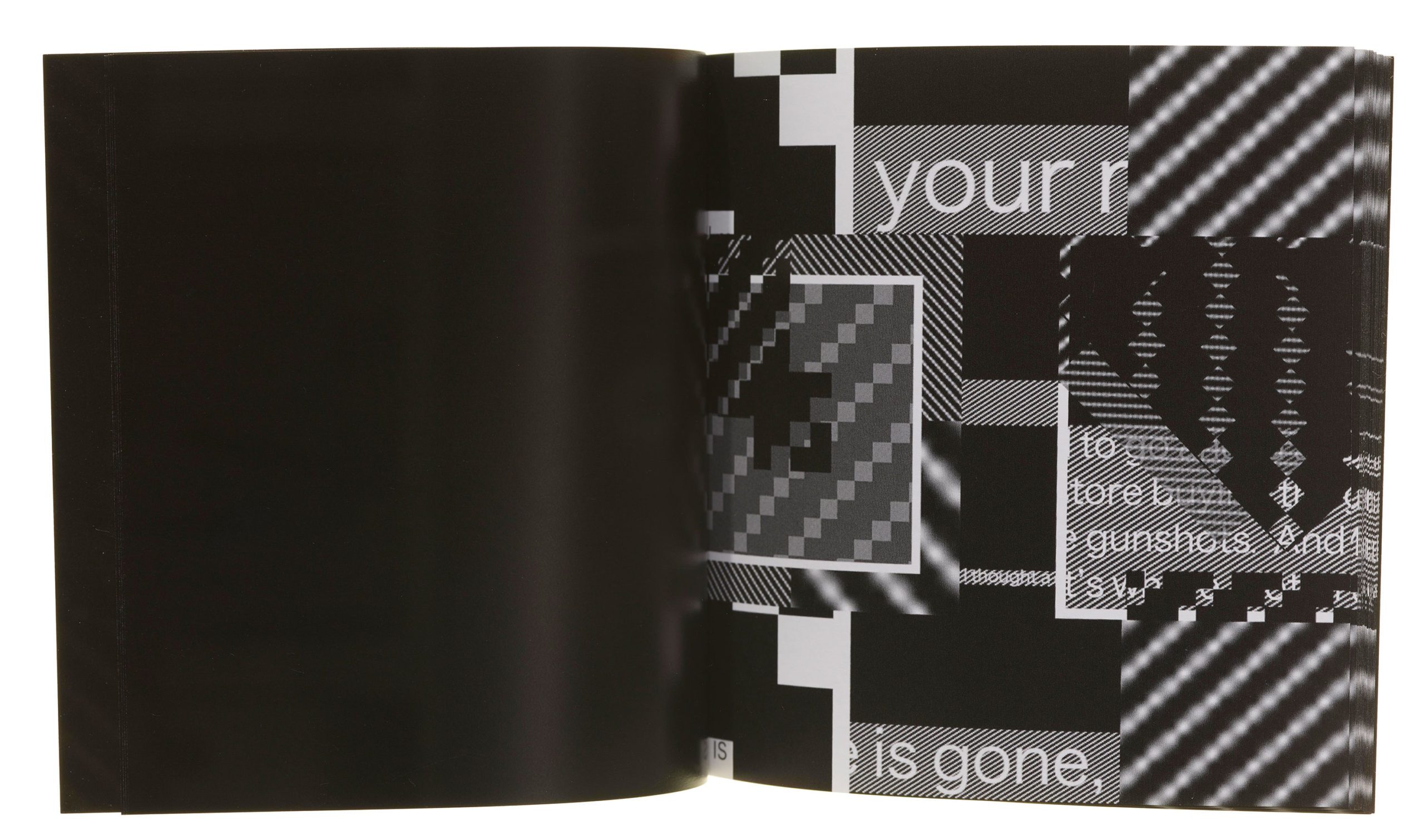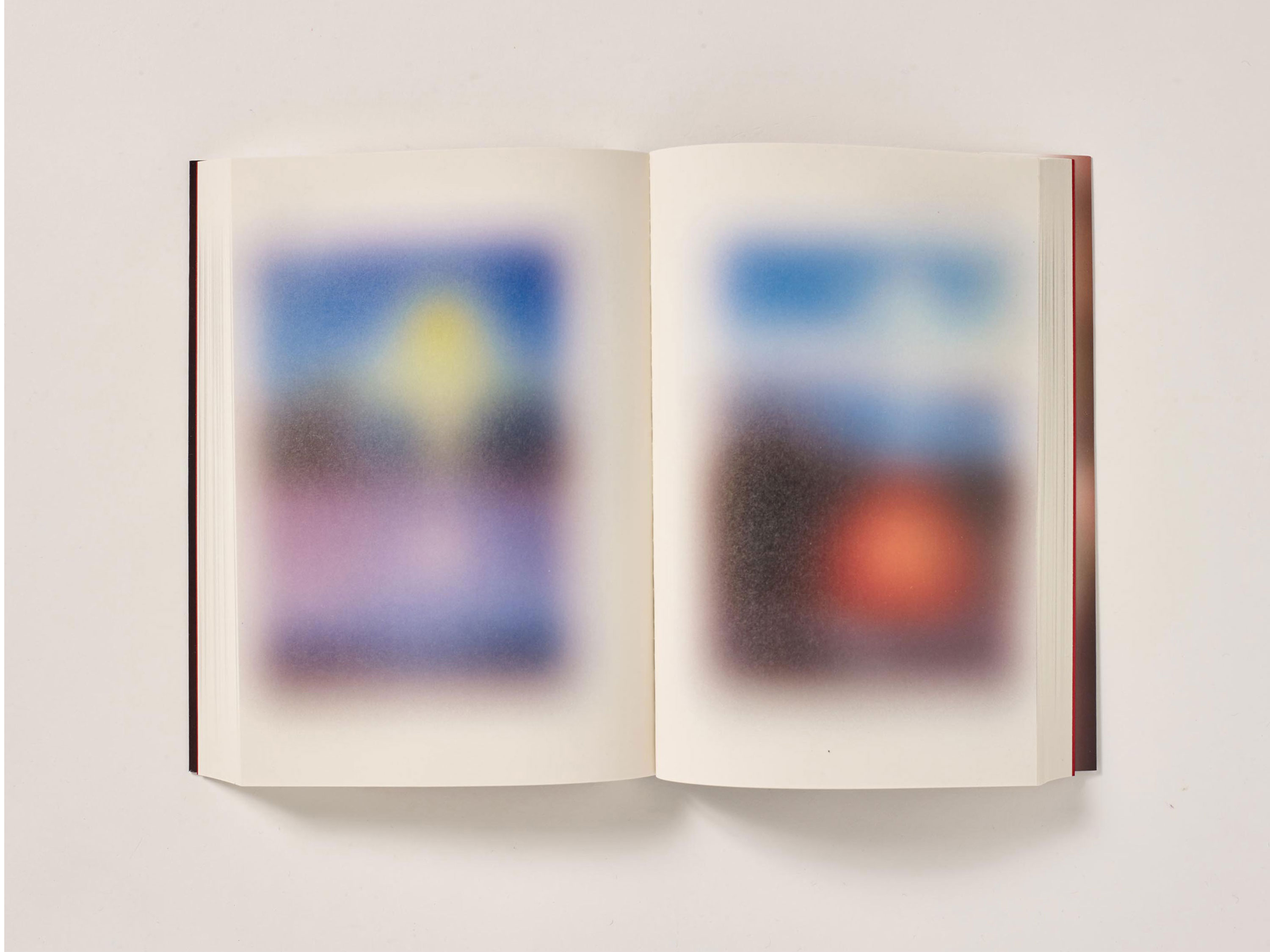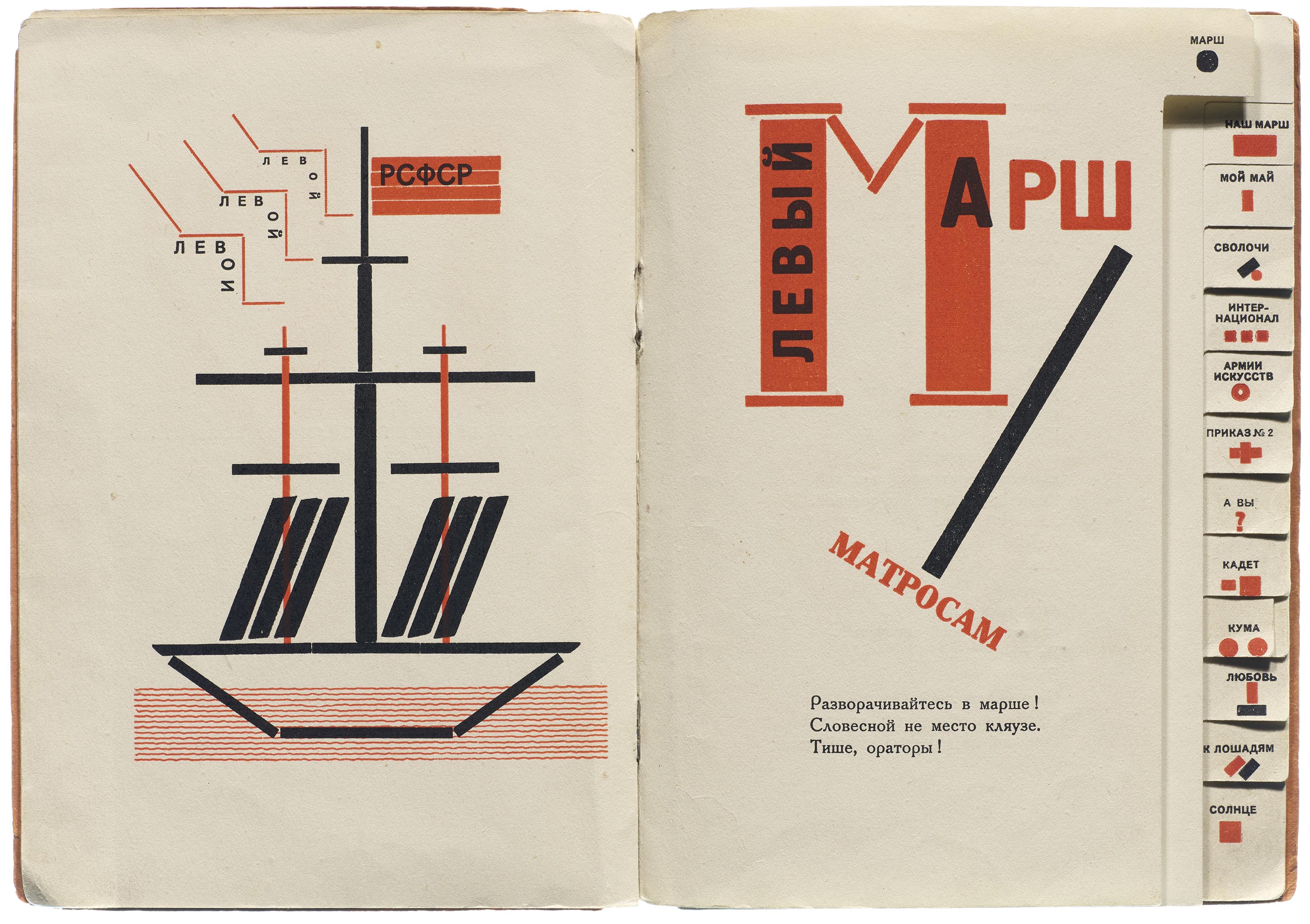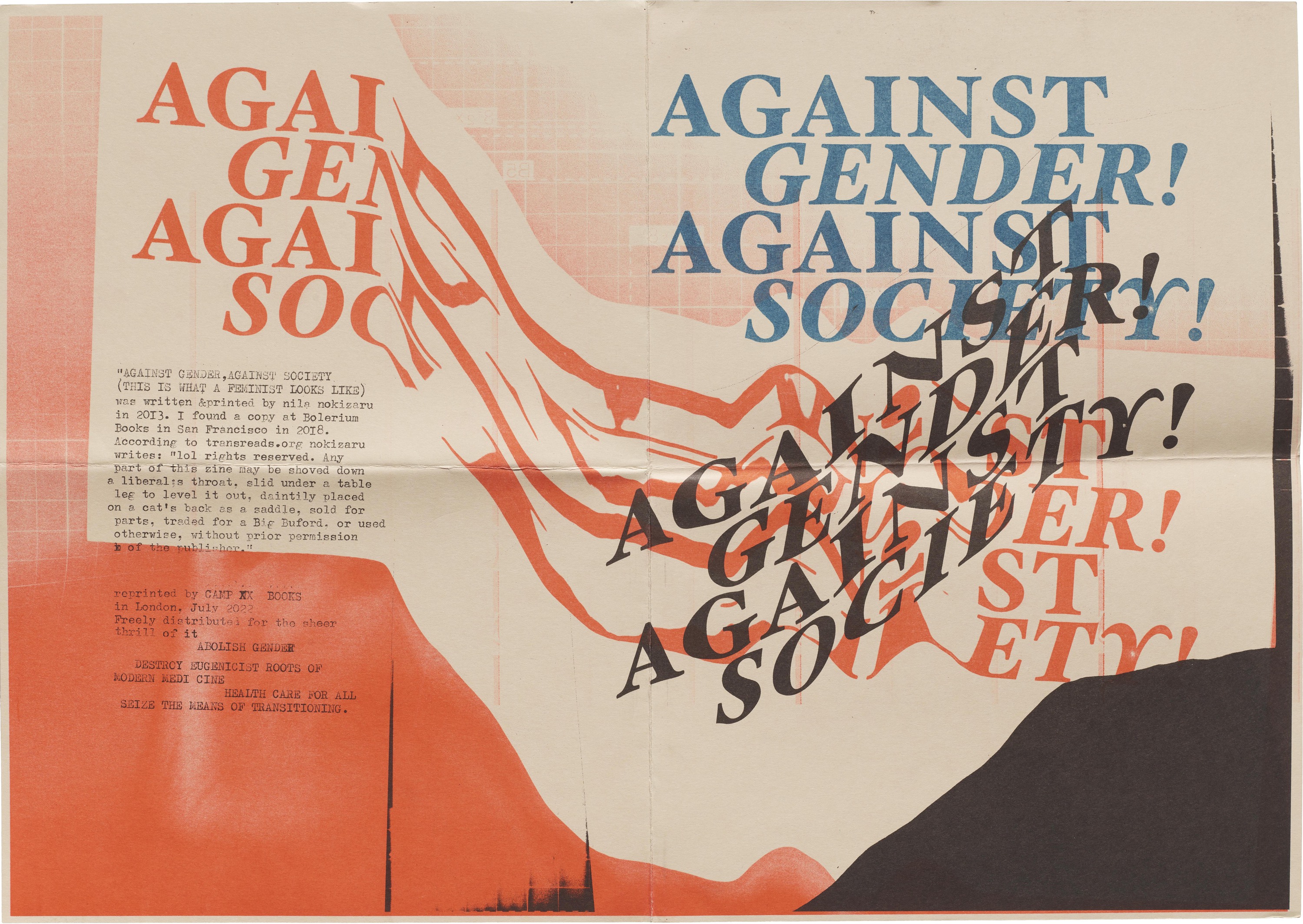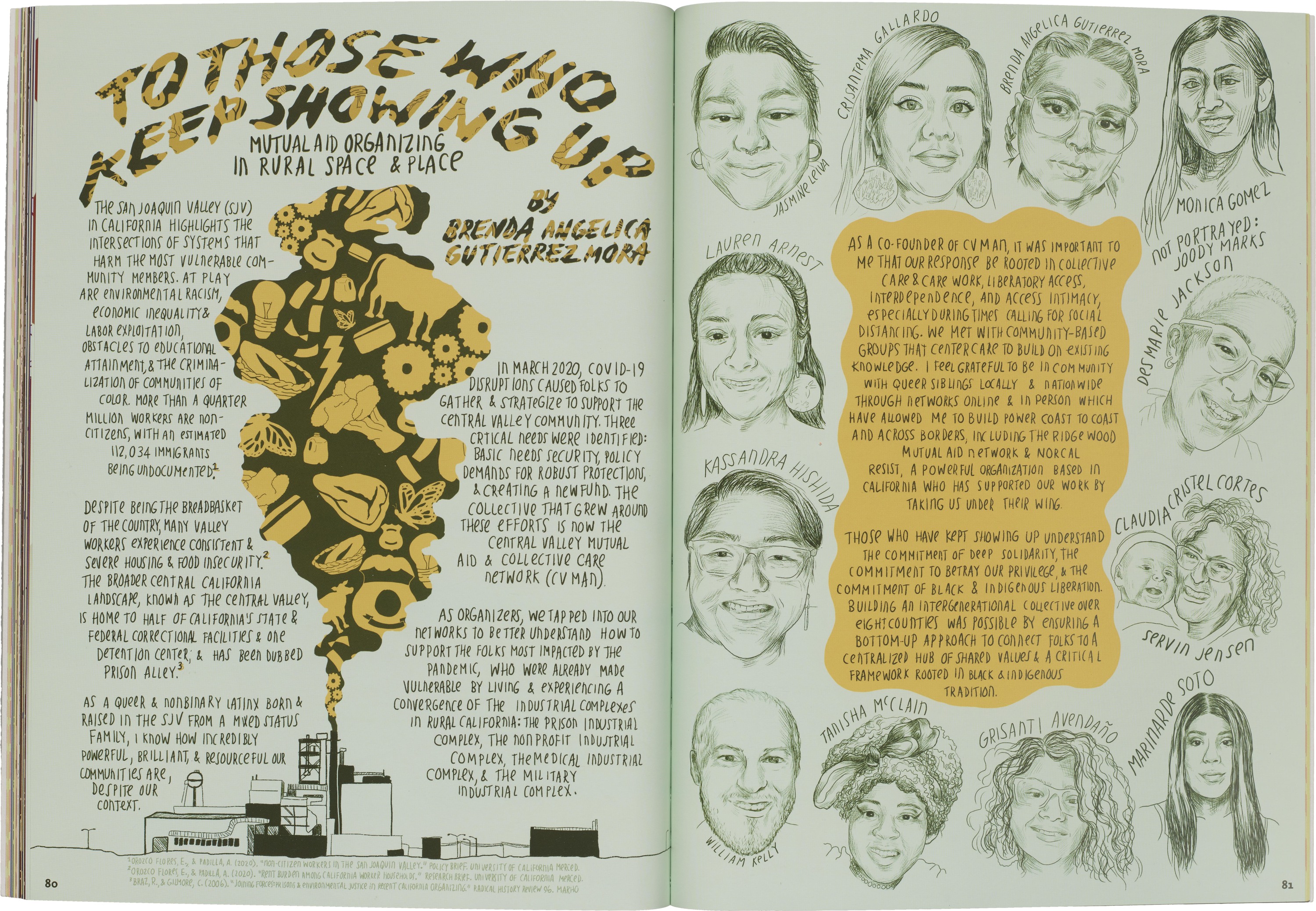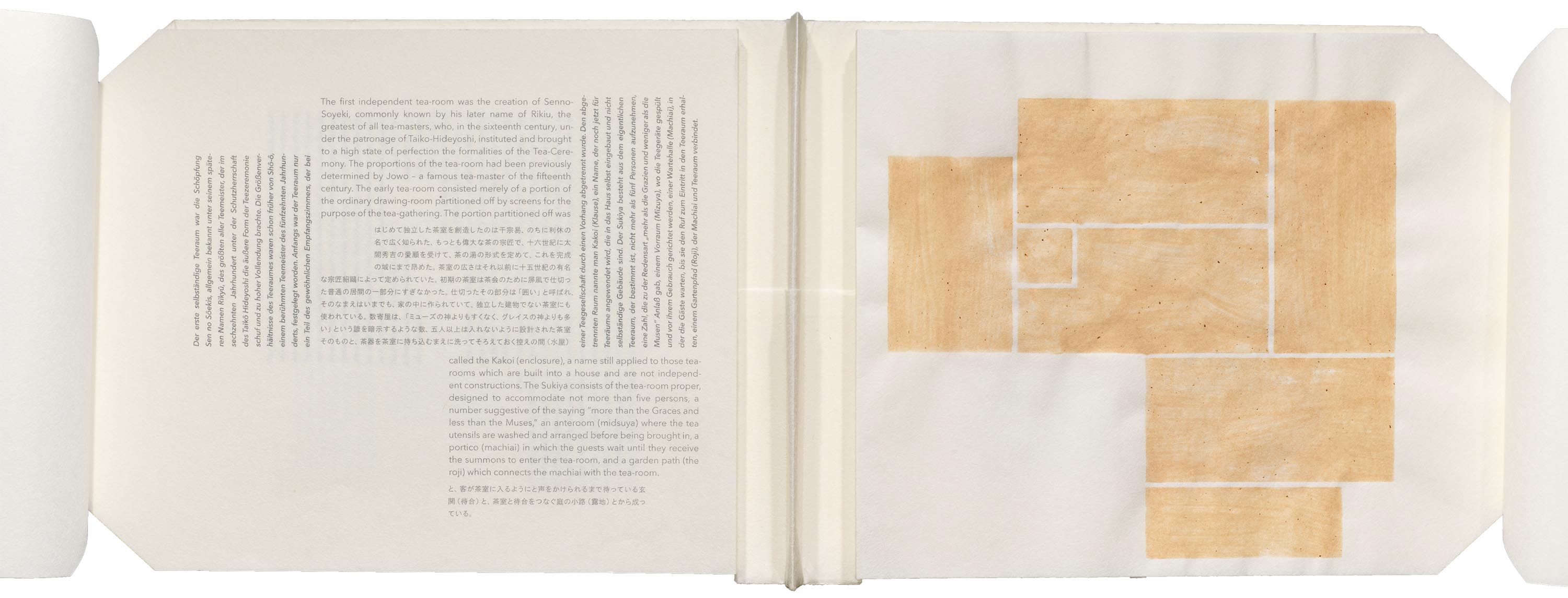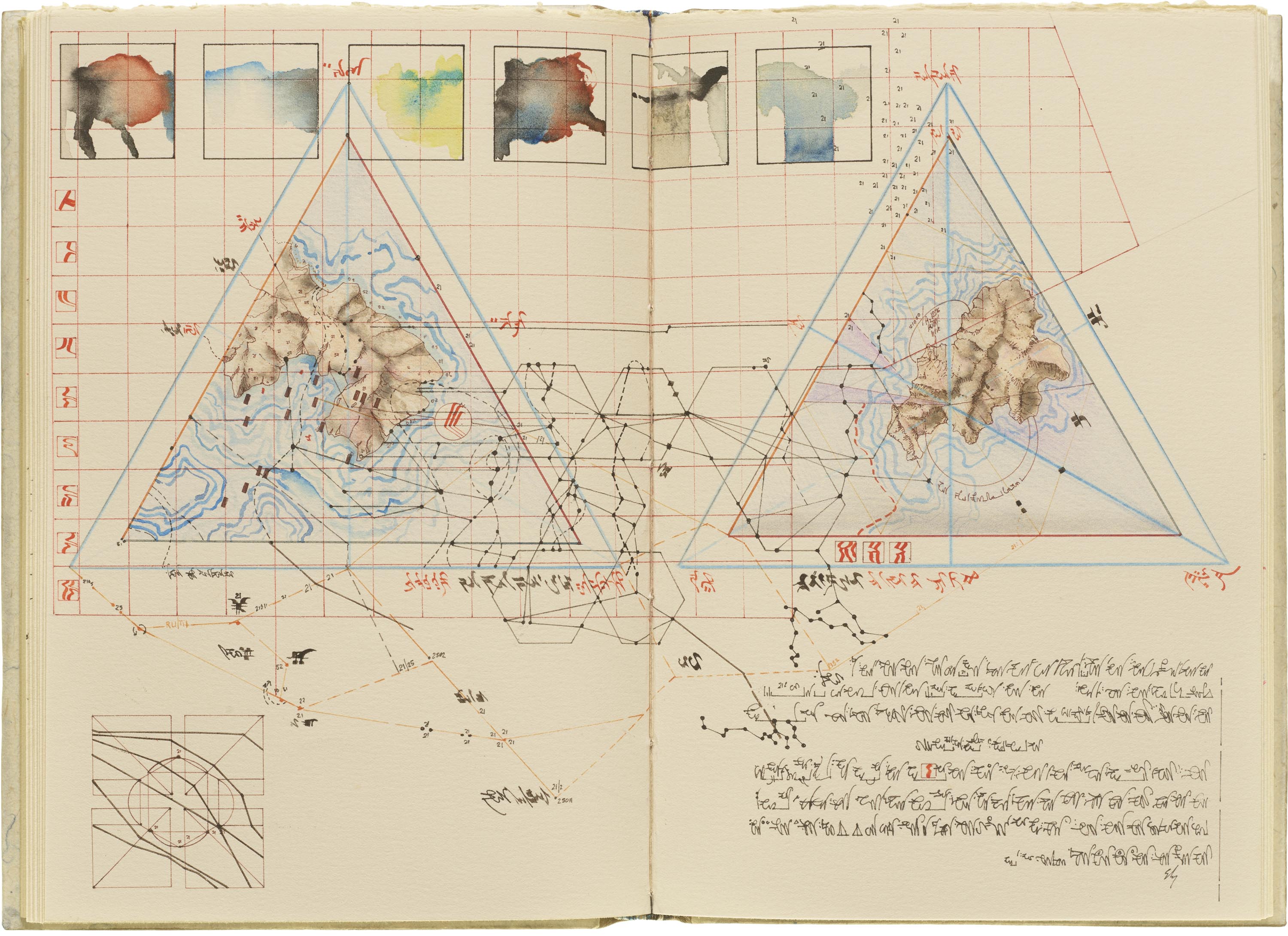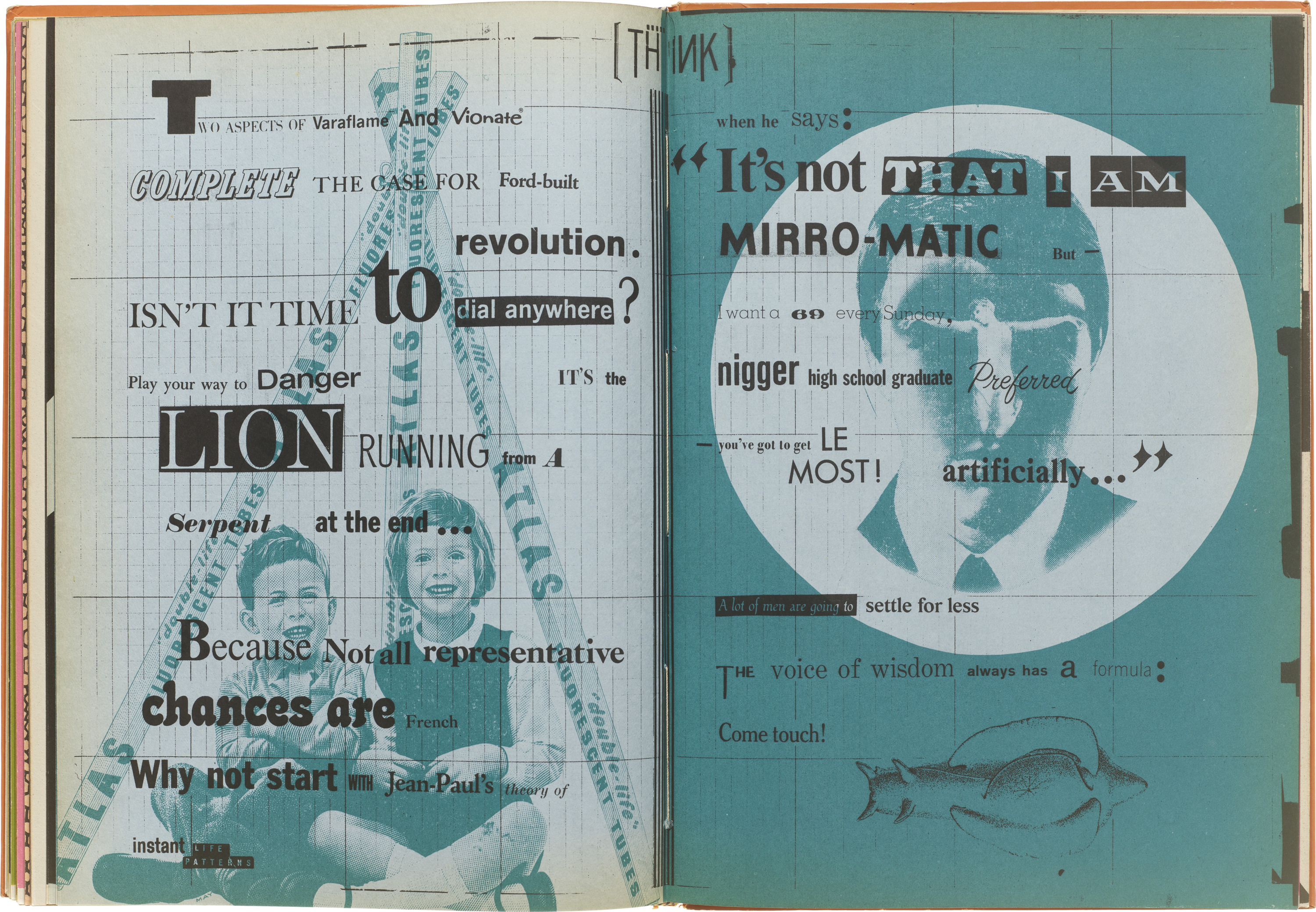
Graphic design isn’t purely commercial. Letterform Archive holds and shares a deep collection of books made from an artist’s point of view.
An artist’s book, in its simplest definition, is an artwork in the form of a book. This can take on countless forms—it might be a bound volume of pages, a sculptural object, or something in between. It may or may not include text (though that’s a focus of the Archive’s collecting scope), and its structure, binding, materials, and printing techniques often become areas of experimentation. Artists’ books are usually handmade, and, given the labor-intensive nature of their production, they are frequently created in limited editions or as unique objects.
Their conceptual nature, and experimentation with structure and movement, introduce a fascinating paradox in how artists’ books are experienced. The intricate craftsmanship of many artist’s books demands careful handling, making them rare and fragile objects. Should they be admired from behind glass, preserved through documentation, or embraced through communal ownership? Freed from the constraints of mass production, artist’s books often take on unconventional forms that challenge traditional notions of what a book can be. This tension between form and function is a defining characteristic of the medium.
Artists’ books are inherently tactile and designed to be interacted with. Their sequential nature often redefines the idea of a book — an experience best appreciated in person. While that physical interaction isn't always possible online, this page offers resources to bring artists’ books from across the world to you. Find here high-resolution images from the Online Archive alongside video page-throughs to inspire your own explorations.
Binding: The act of fastening, securing, or uniting. In artists’ books, the choice of paper stocks and substrates influences not just the visual appeal but also the structural and conceptual design.
Various folding techniques are used to create interactive moments and dimensional effects. Here are a few:
Accordion fold: A single sheet or multiple joined sheets are folded in a zigzag pattern, forming a sequence of connected panels. See Words by Ximea Perez Grobez.
Gate fold: A page is folded inward from both sides, opening like a gate to reveal a hidden panel or expand into a larger spread. See White Verbs by Veronica Schapers.
Pop-up: Carefully cut and folded paper elements spring into 3D shapes when the page is turned, adding an element of surprise. See Poemobiles by Augusto de Campos and Julio Plaza.
French fold: A type of brochure where the piece of paper is folded in half one direction, and then folded in half again perpendicularly to the first fold. See Queer Means of Production by Camp Books.
Drum leaf fold: Invented by Timothy Ely, the drum leaf binding lies open flat and is popular among book artists due to the ability to design books in spreads, allowing imagery to flow seamlessly across the gutter of the book. See Consider Your Phantom Replies by Timothy Ely.
These and many more such folds transform artists’ books into dynamic, multi-dimensional experiences, enhancing both form and function.
Vivian Sming, our 2022 Letterform Archive Curatorial Fellow, explores intertwining themes of weaving and language.
Sming interviews Alan Sobrino of Errant Press who distributes and publishes books by Latin American artists, often in bilingual editions.
Discover three contemporary calligraphy artists who blur the lines between visual art and the written word.
Based in Ireland, the work of Van Maele and Antic-Ham (or “Franticham”) combines screen printing, photography, ephemera, and poetry, often presented in the form of artists’ books.